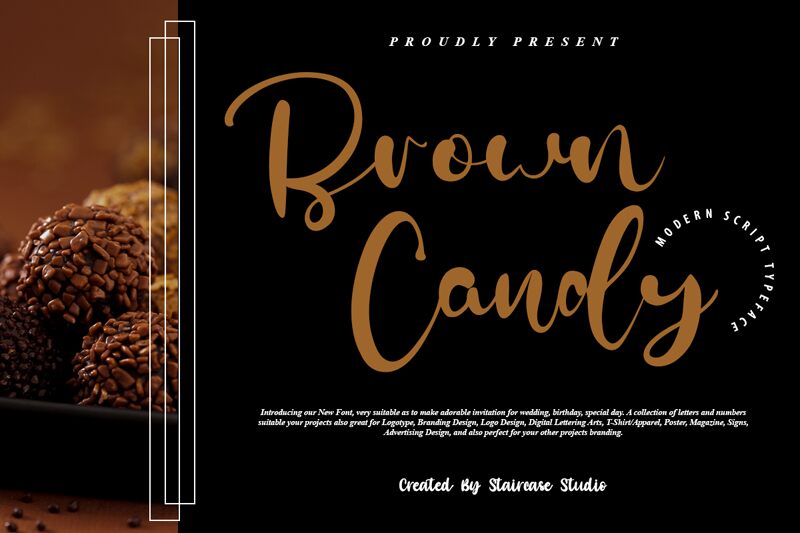
Brown Candy
Brown Candy, the mesmerizing calligraphy typeface by Staircase Studio, is sure to add a touch of elegance and sophistication to your designs. This semi-bold font boasts intricate strokes and curves that are reminiscent of hand-lettered scripts from centuries past. With its ornate flourishes and flowing lines, Brown Candy is perfect for wedding invitations, high-end branding materials, and luxury packaging. Let this enchanting typeface elevate your projects with its timeless beauty and unparalleled charm.